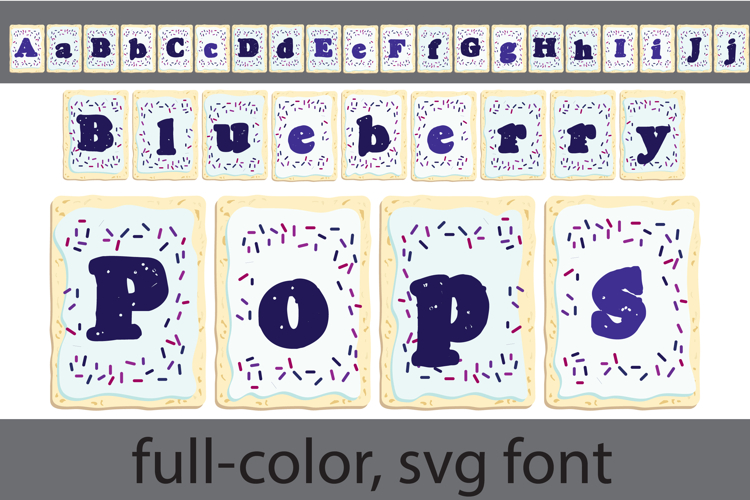
Blueberry Pops Color Font
This hand-crafted font is a full-color font featuring a blueberry toaster pastries. There is an alt case of each letter with a different color combination.